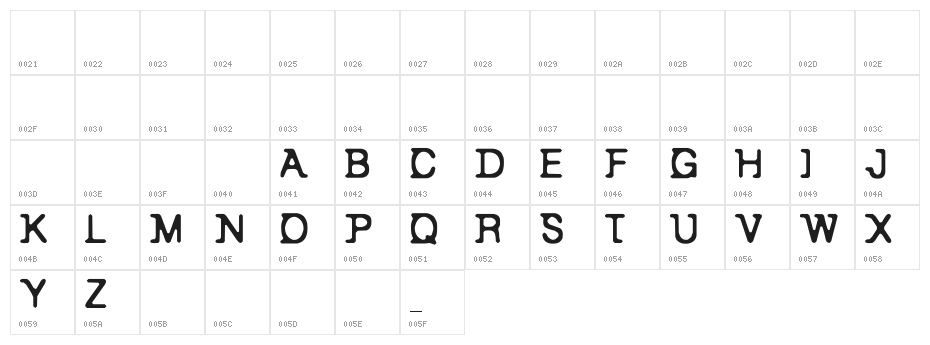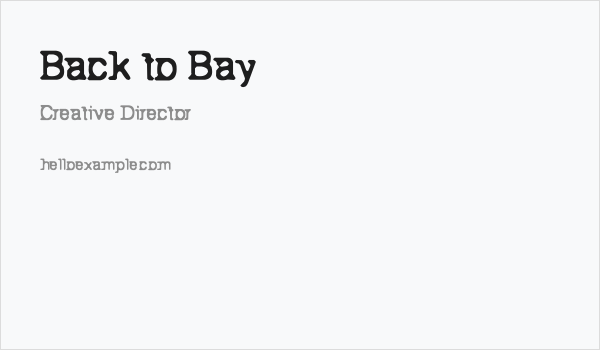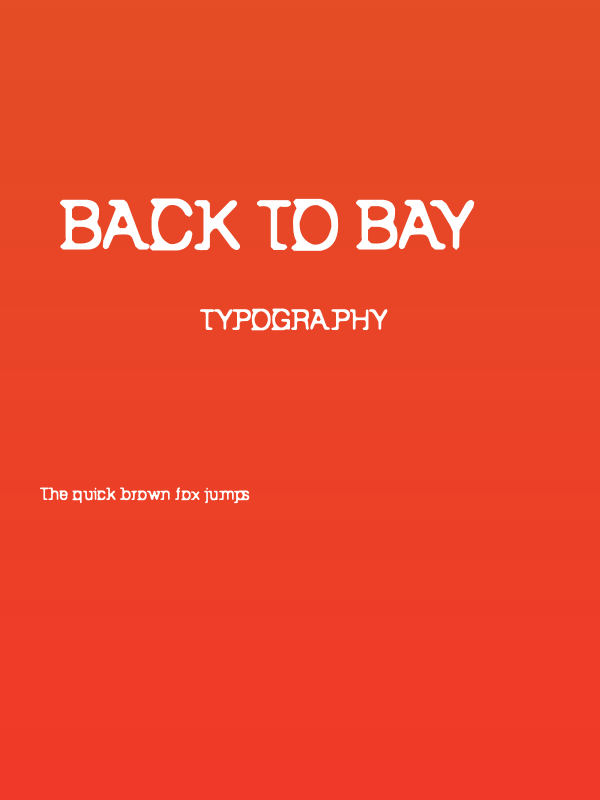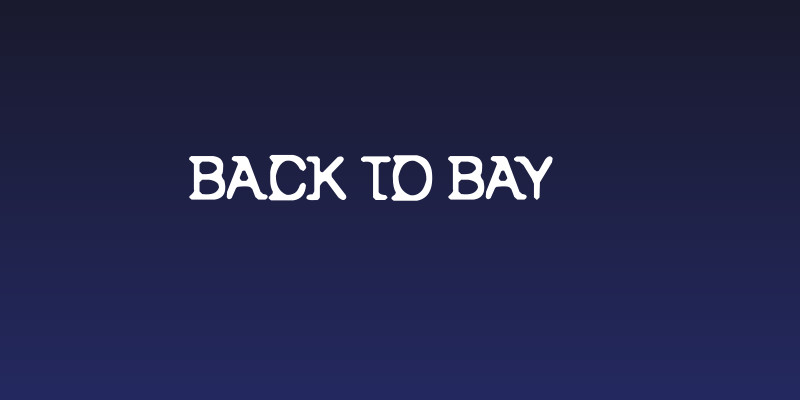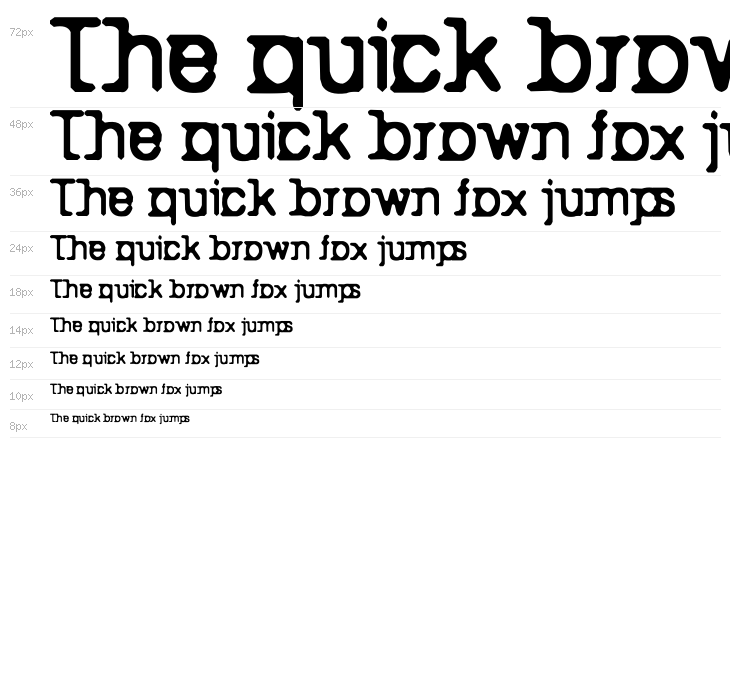
Back to Bay 6 Font
Back to Bay 6 Description
This font features a bold and distinctive style with a strong presence. The characters are designed with a unique, slightly irregular shape that gives them a handcrafted appearance. The uppercase and lowercase letters maintain a consistent thickness, contributing to a cohesive look. The font's design includes subtle curves and angles, adding an element of playfulness while retaining readability. Its boldness makes it suitable for attention-grabbing headlines or titles. The spacing between characters is balanced, ensuring clarity and legibility. Overall, this font combines a modern aesthetic with a touch of vintage charm, making it versatile for various design projects.
| Overall Style | Modern, Vintage |
| Proposed Projects | Ideal for posters, branding, packaging, and creative headlines. |